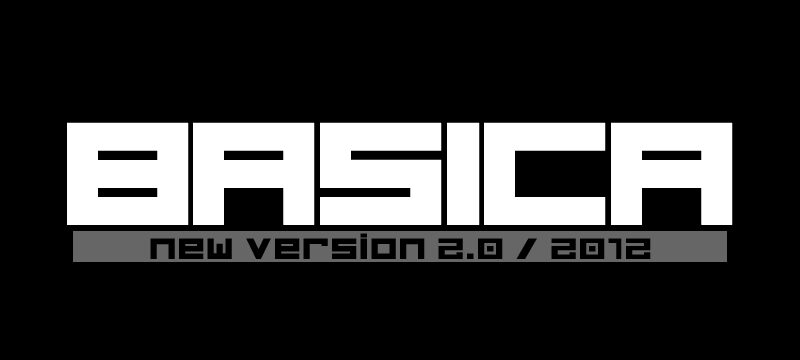
Basica 2.0 by Carlos Matteoli is a free futuristic display font with broad, geometric letters and a distinctly electronic profile. Long horizontal strokes, squared openings, and sharp triangular cuts give the alphabet a sleek machine-made edge.
It is strongest in science-fiction title cards, where its wide proportions and broken-line details suggest screens, circuitry, and technical interfaces. The same angular motif can connect game graphics, electronic music packaging, and technology branding with diagrams or interface-style imagery.